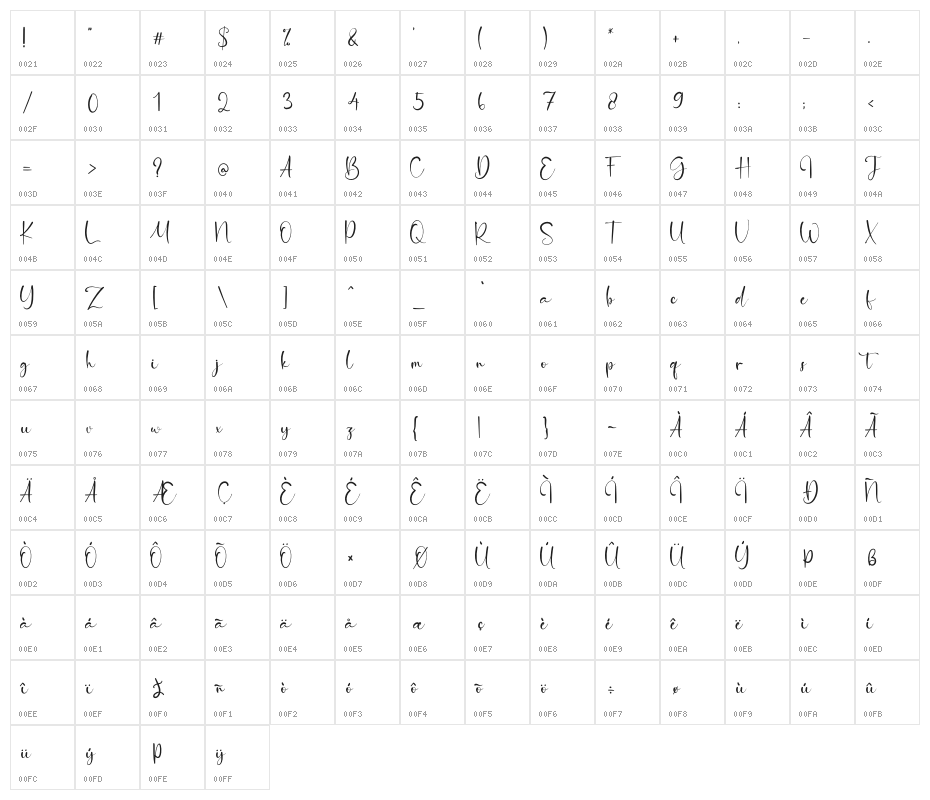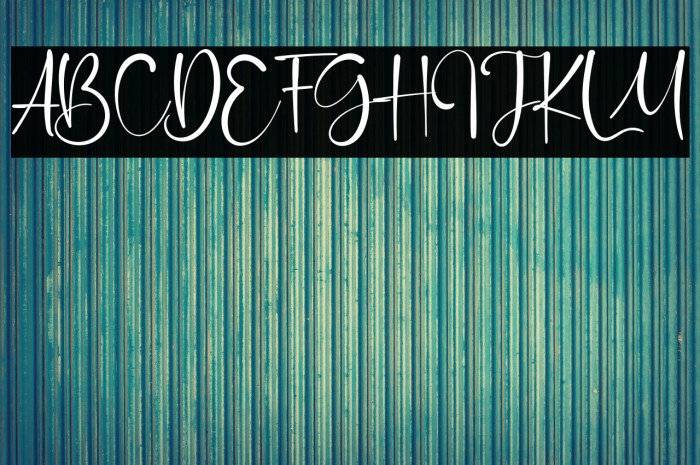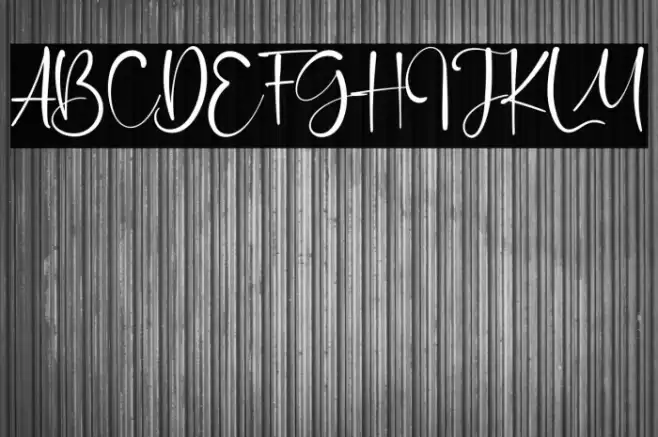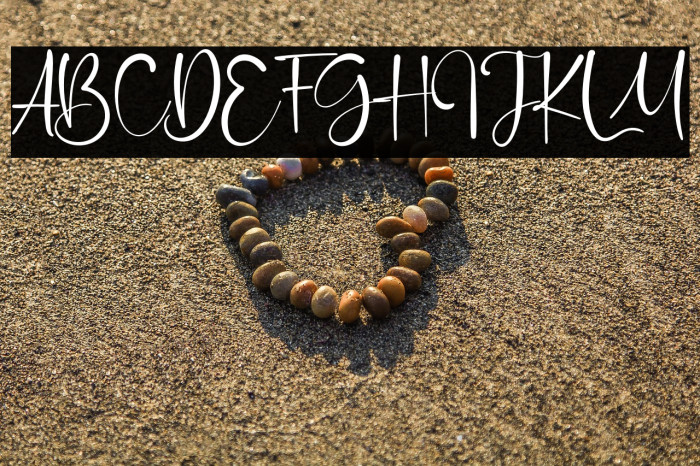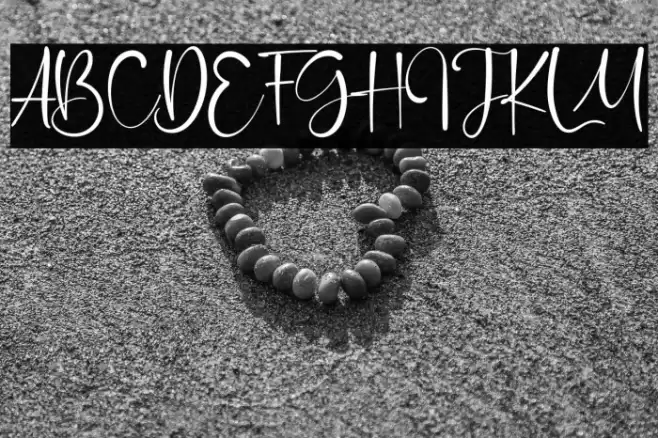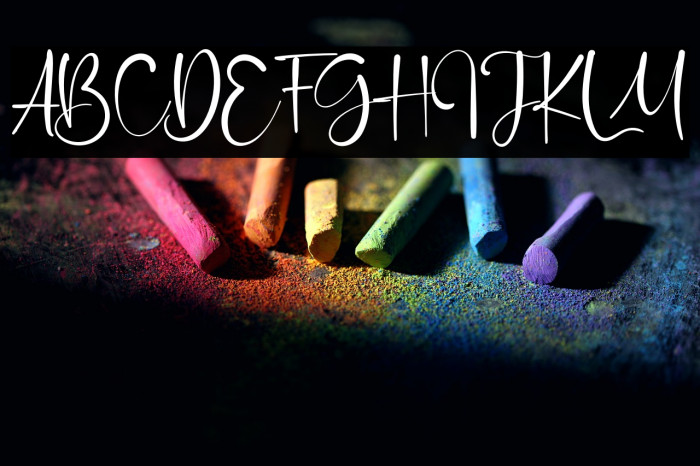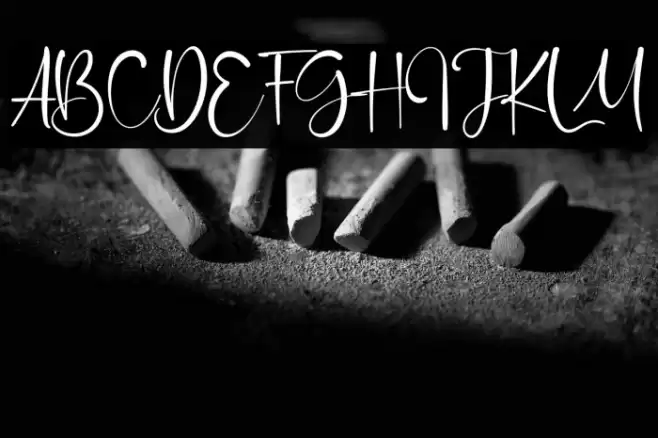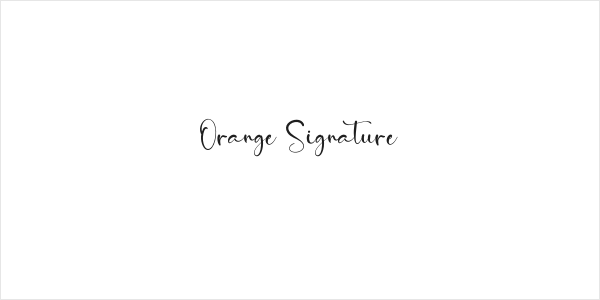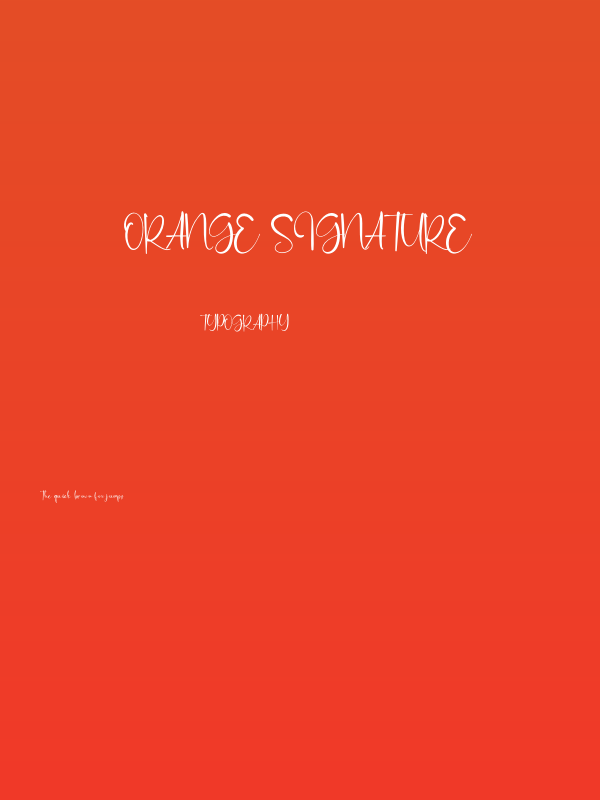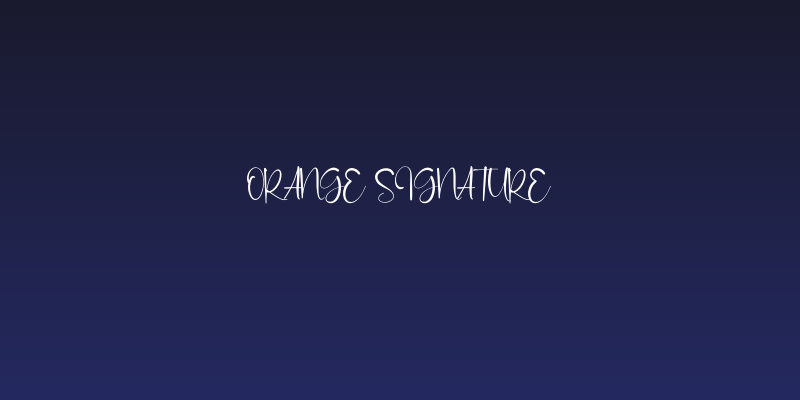
Orange Signature Font
Orange Signature Description
This font exudes elegance and sophistication with its fluid, cursive style. The characters are crafted with a delicate touch, featuring graceful loops and swirls that mimic the natural flow of handwriting. The uppercase letters are bold and prominent, while the lowercase letters maintain a consistent, flowing script. Numbers and special characters are designed with the same attention to detail, ensuring a cohesive look across all text. The overall appearance is both modern and timeless, making it suitable for a variety of applications where a personal, yet professional touch is desired.
| Overall Style | Elegant, Modern |
| Proposed Projects | Ideal for wedding invitations, personal branding, elegant logos, and greeting cards. |